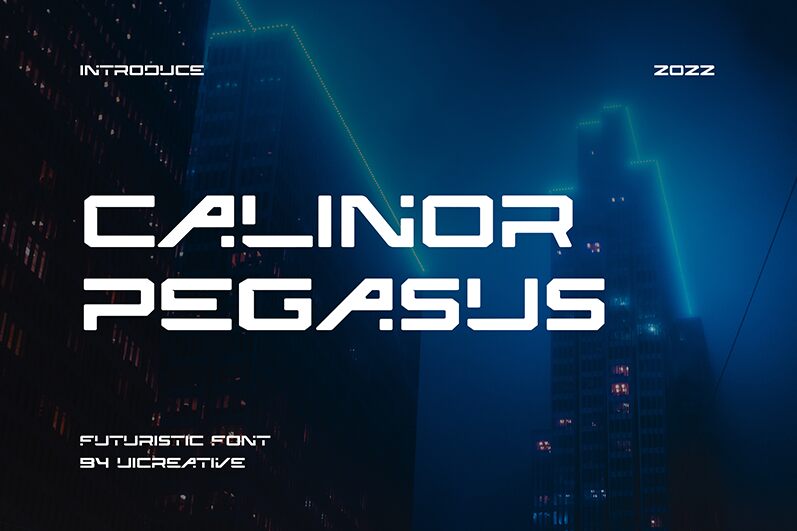
CALINOR PEGASUS
Calinor Pegasus, a captivating futuristic display font masterfully crafted by UI Creative, radiates an air of bold elegance. With its expanded, geometric form and a striking balance of sharp angles and smooth curves, this font commands attention, evoking a sense of technological sophistication and progressive design. The clean, streamlined letterforms exude a refined, forward-thinking aesthetic, making Calinor Pegasus an exceptional choice for branding, editorial layouts, and cutting-edge digital interfaces.
Calinor Pegasus's versatility extends beyond its visual allure, as its expansive character set and legible structure make it a suitable choice for a diverse range of applications. From modern packaging and product labeling to eye-catching headlines and impactful signage, this font has the power to elevate any design project with its futuristic flair and unwavering presence.